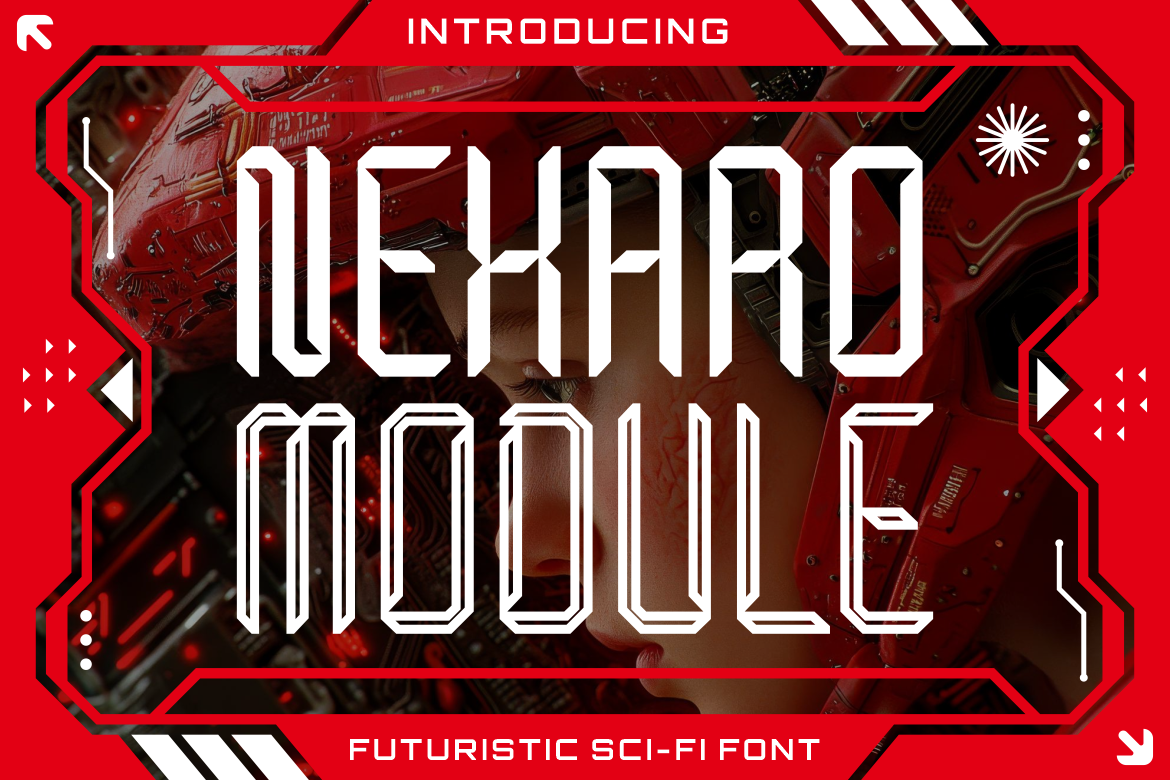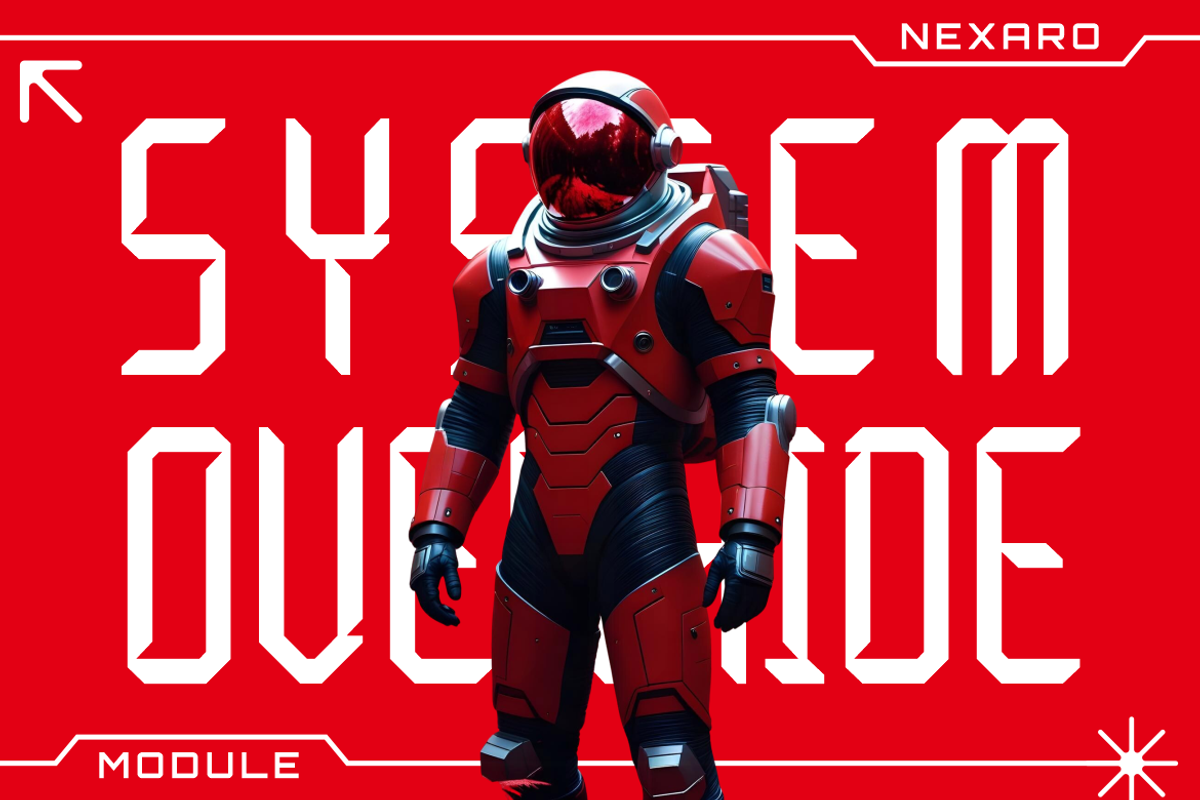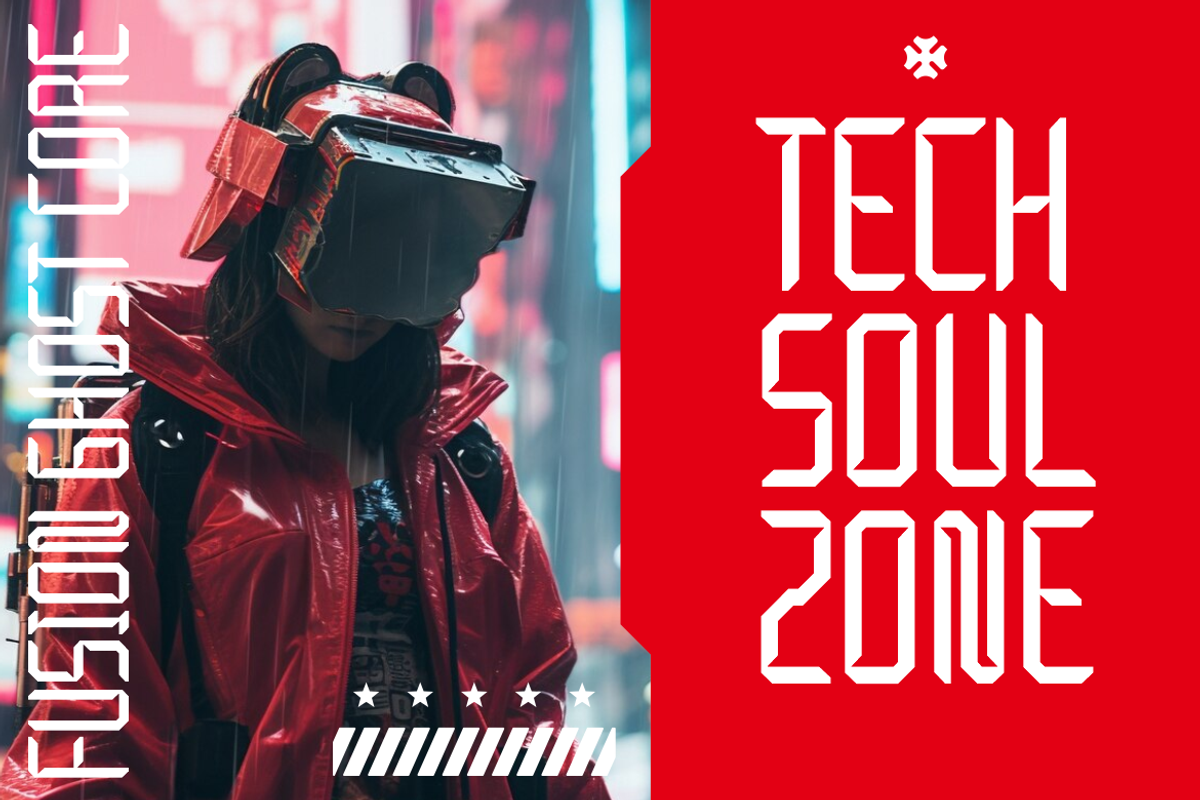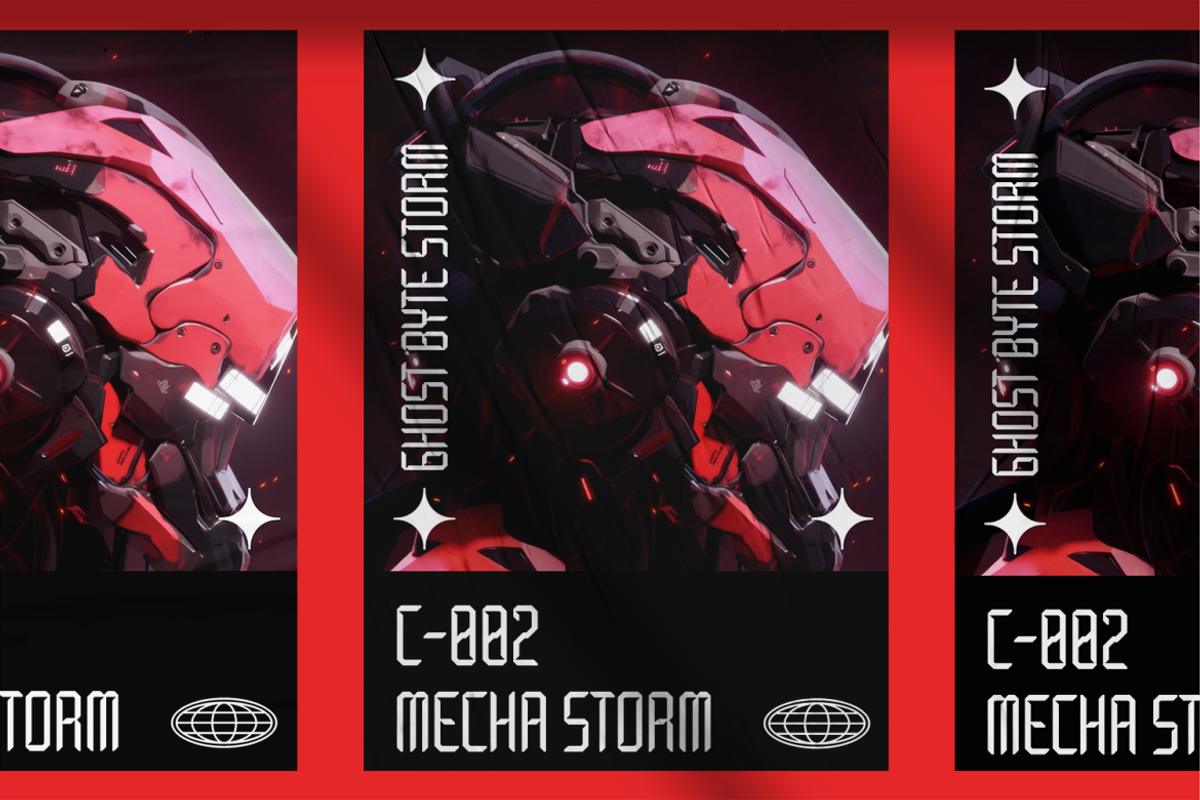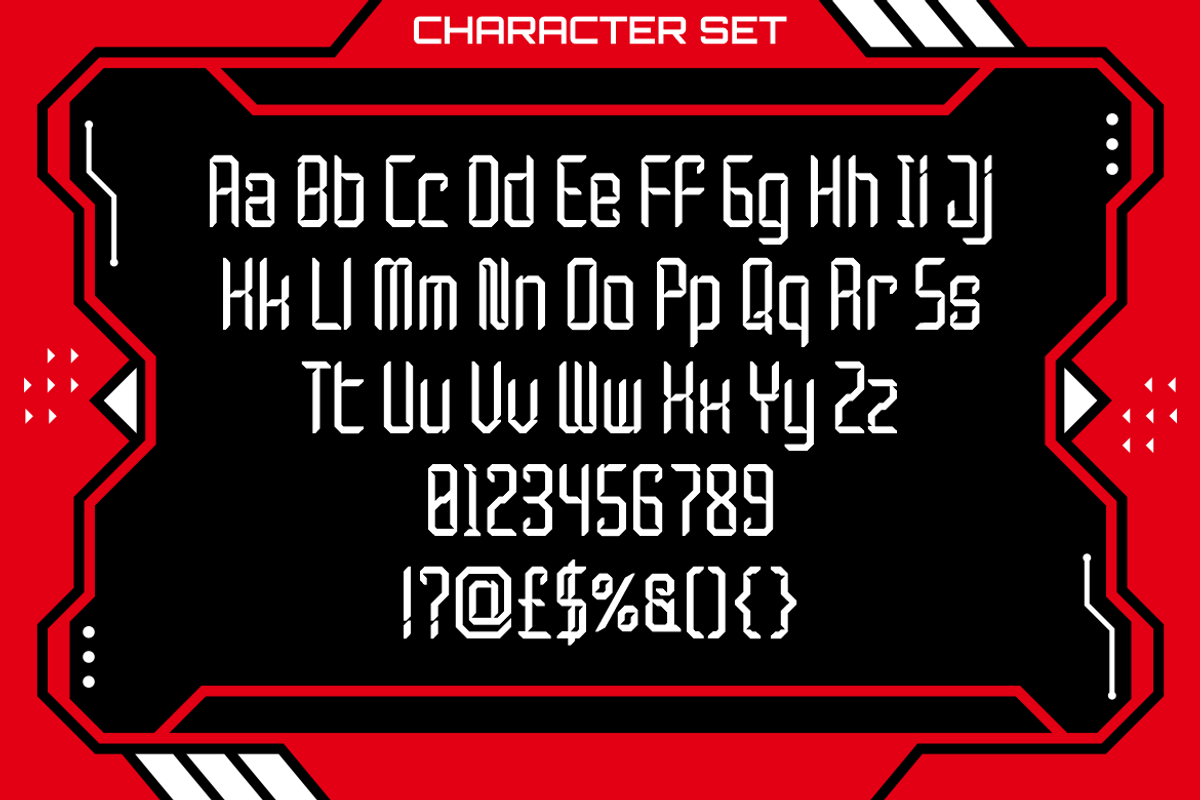
Nexaro Module Futuristic Sci-Fi Font
Nexaro Module is a bold futuristic sci-fi typeface engineered for forward-facing designs. It blends sleek angles, mechanical symmetry, and modular linework into a visually electrifying display font. Each character evokes circuitry and spacecraft detailing, built with elongated vertical forms and sharp-edged terminals to emphasize a high-tech, engineered appearance. Its design DNA fits perfectly in layouts involving cyberpunk themes, robotics, mecha worlds, or any digital-centric visual storytelling. The font includes a full set of uppercase and lowercase characters, numbers, and a comprehensive punctuation set, all consistently formed in a cybernetic grid aesthetic.
Whether you're designing a space mission poster, futuristic gaming UI, tech startup branding, or concept art titling, Nexaro Module delivers commanding visual presence. It fits seamlessly in science fiction films, digital gadget packaging, cyber defense logos, and data-driven editorial spreads. The font also elevates apparel branding, tech stickers, concept books, and game covers with its cutting-edge, robotic identity. Powered by futuristic aesthetics and engineered for digital innovation, Nexaro Module is your go-to for next-gen creative output.